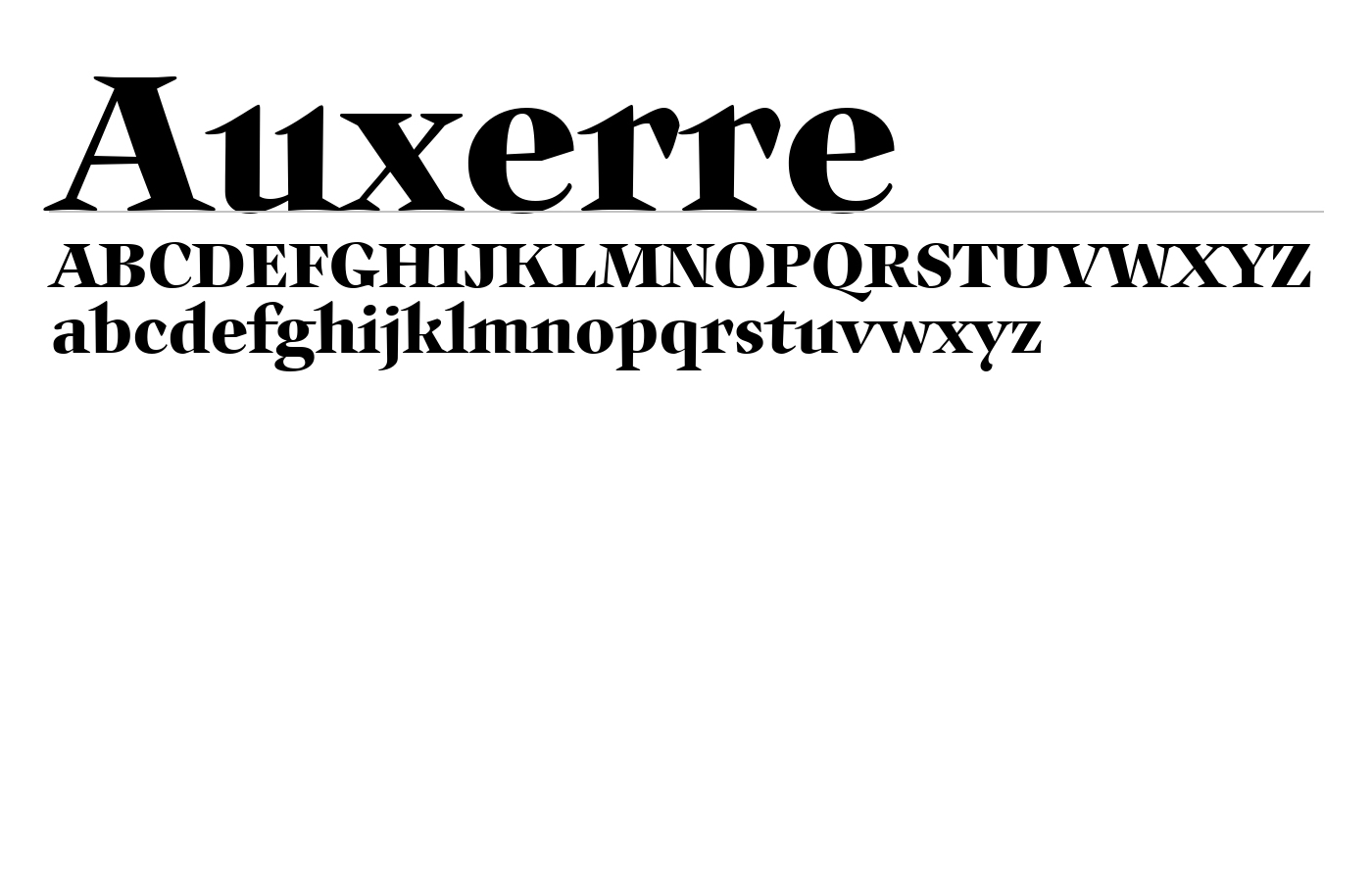
Auxerre is a bold serif font with strong contrast between thick and thin strokes, characterized by its sharp, angular serifs and classic old-style letterforms. It carries a traditional, elegant feel with a sturdy, commanding presence that makes it ideal for sophisticated branding, editorial headlines, and luxury packaging where a touch of timeless refinement is desired. This font works well in designs that require a blend of authority and elegance, providing clear readability with a distinguished personality.
Auxerre Font
About Auxerre Font
| Designer | Ingo Zimmermann |